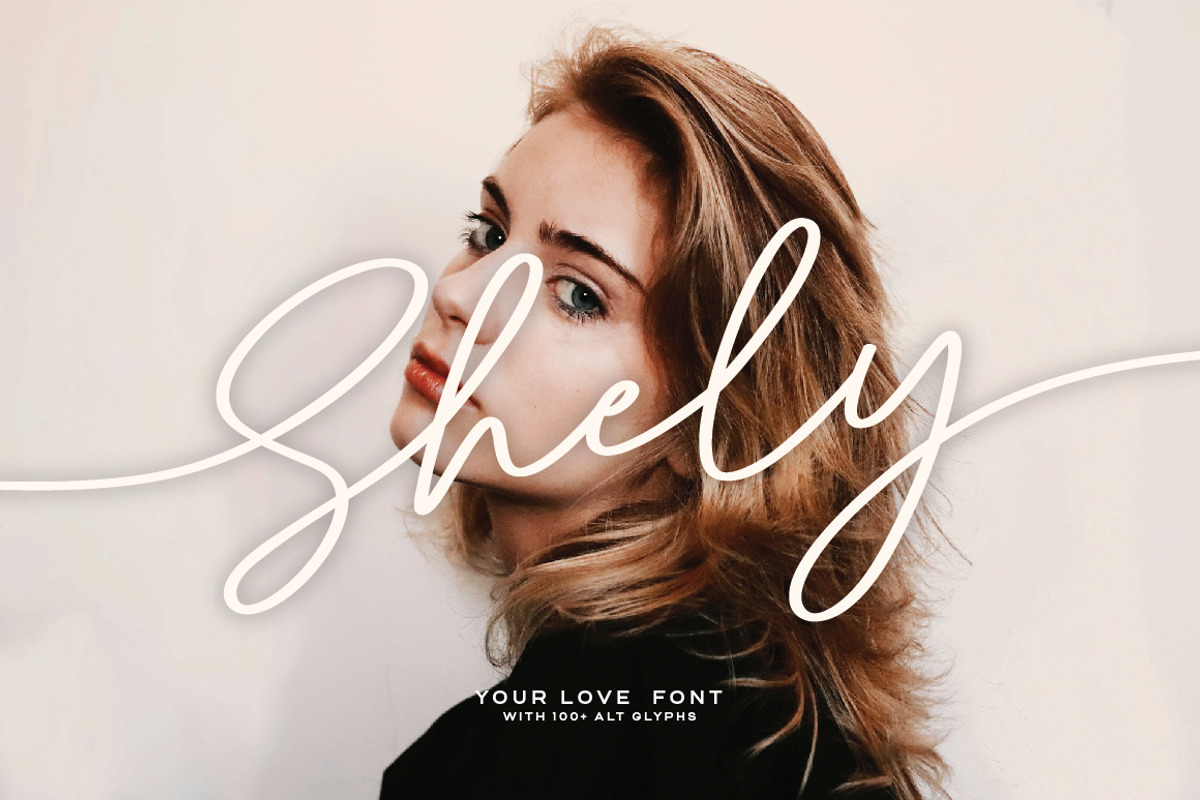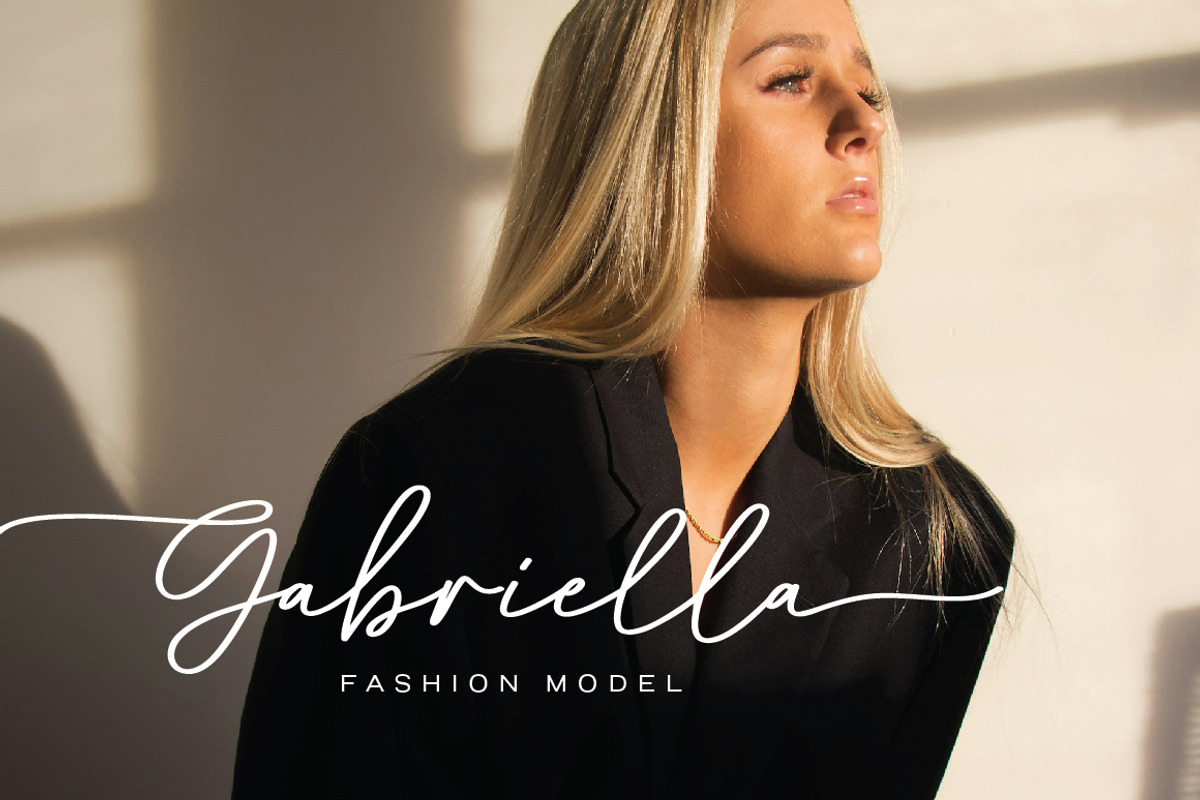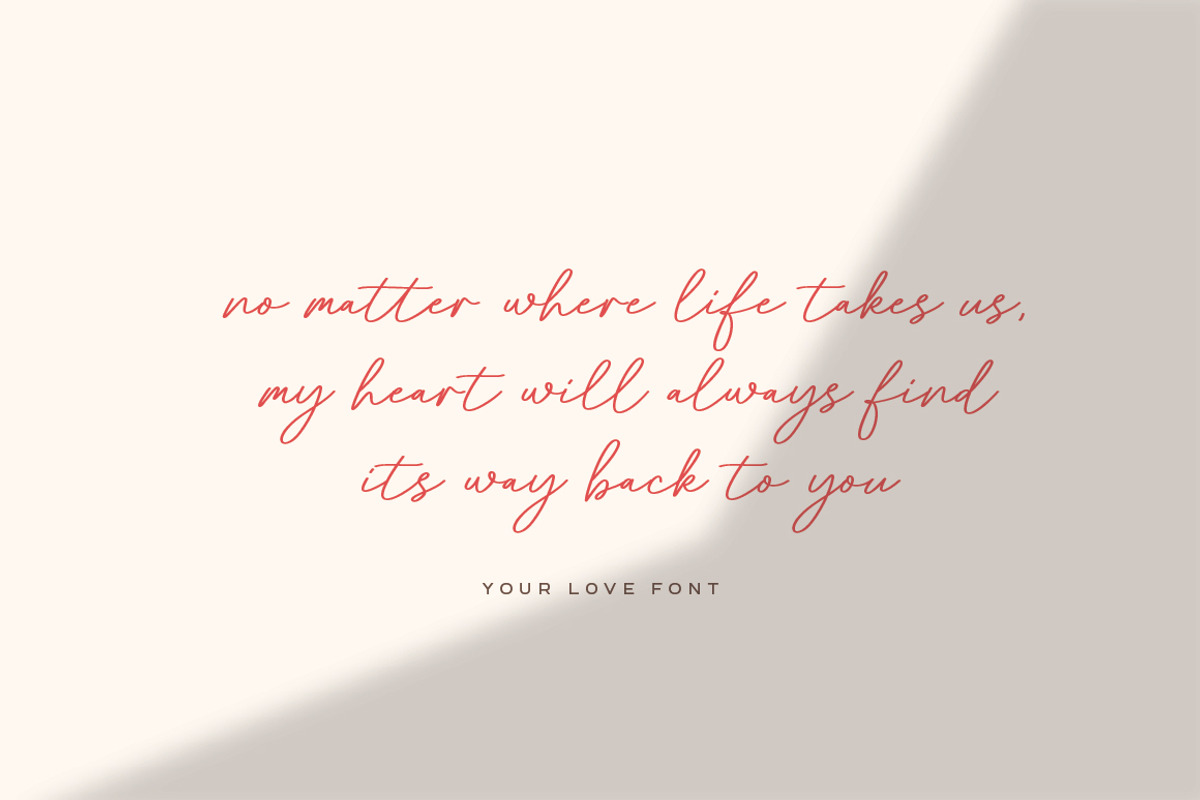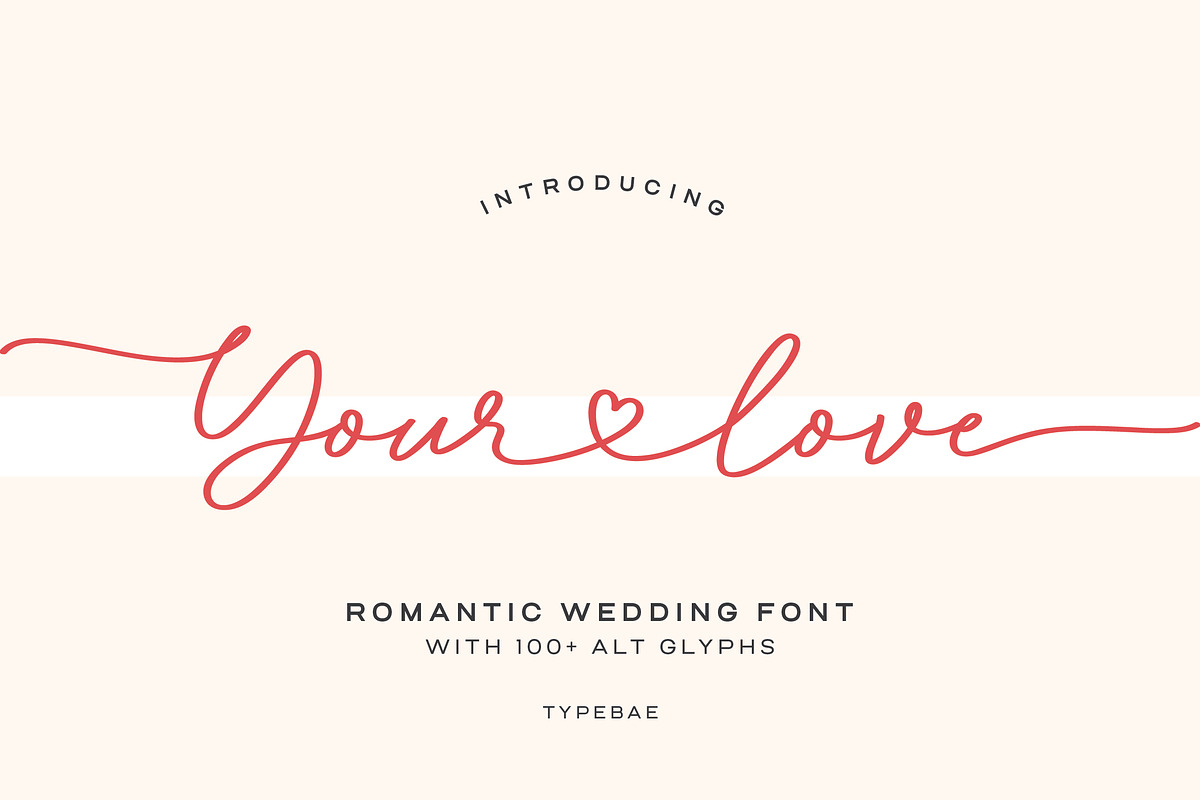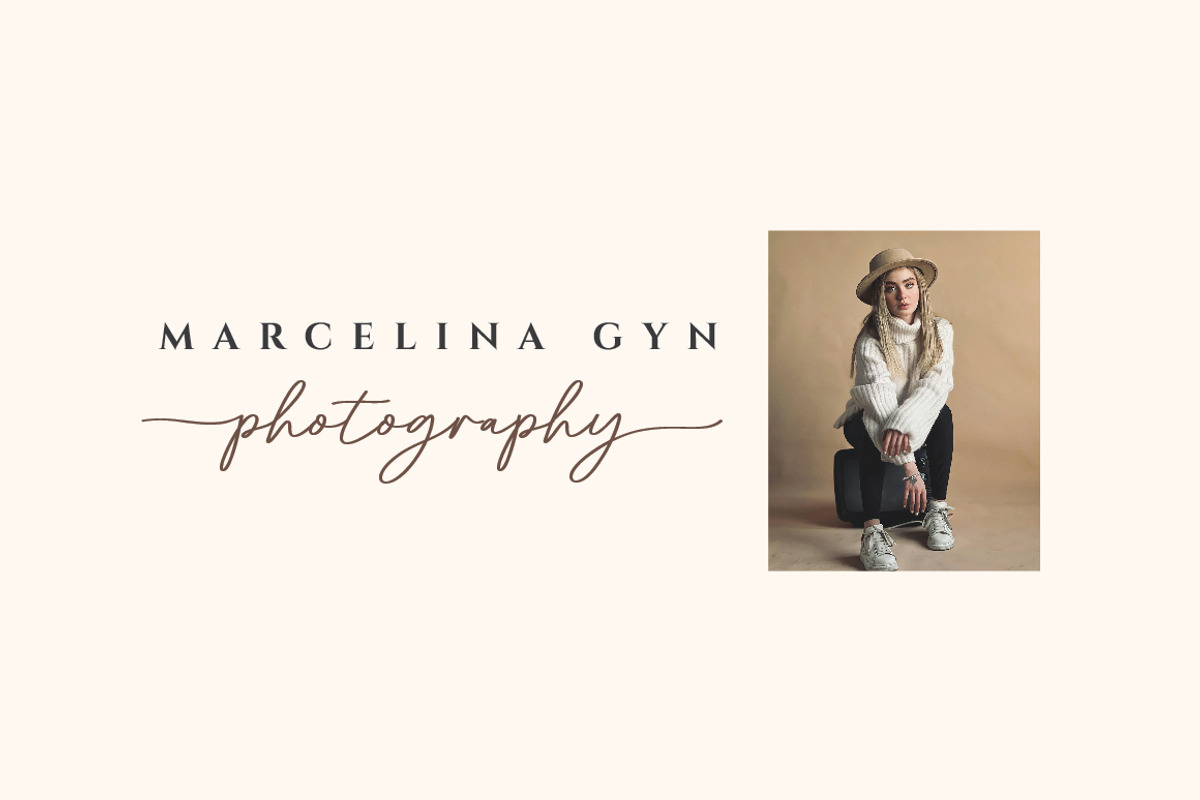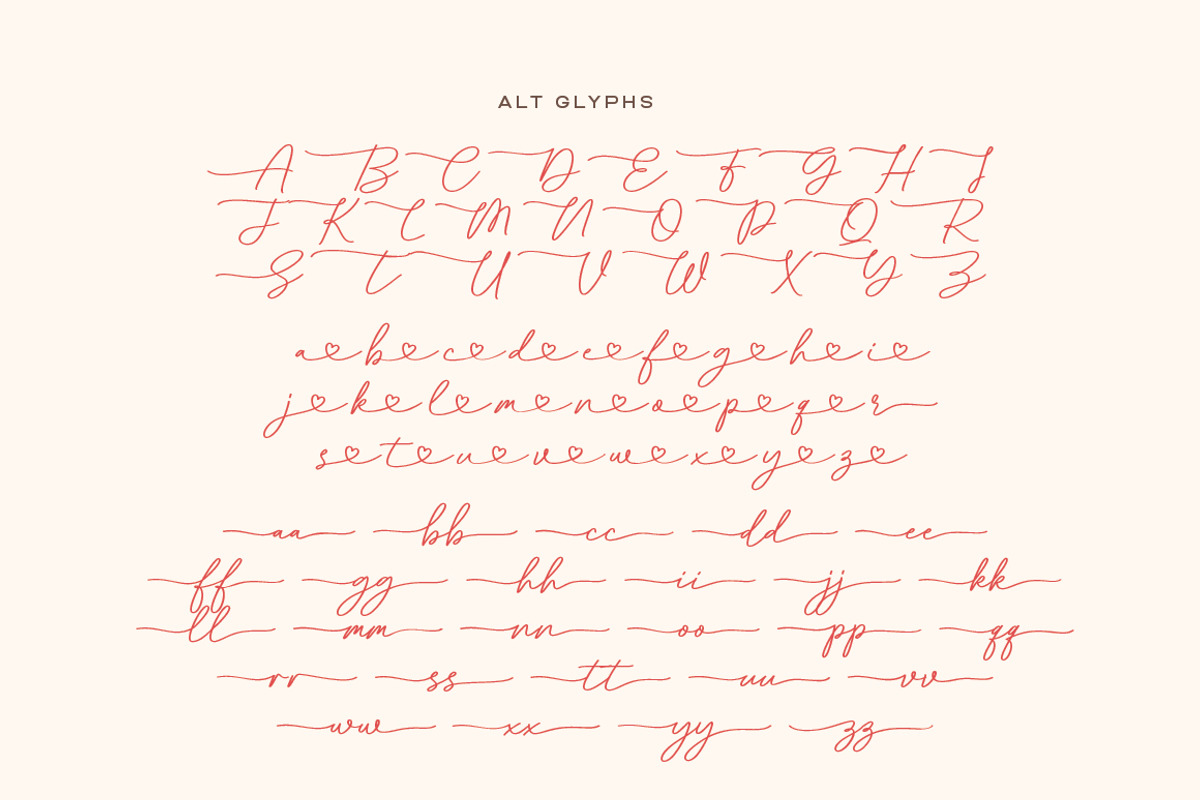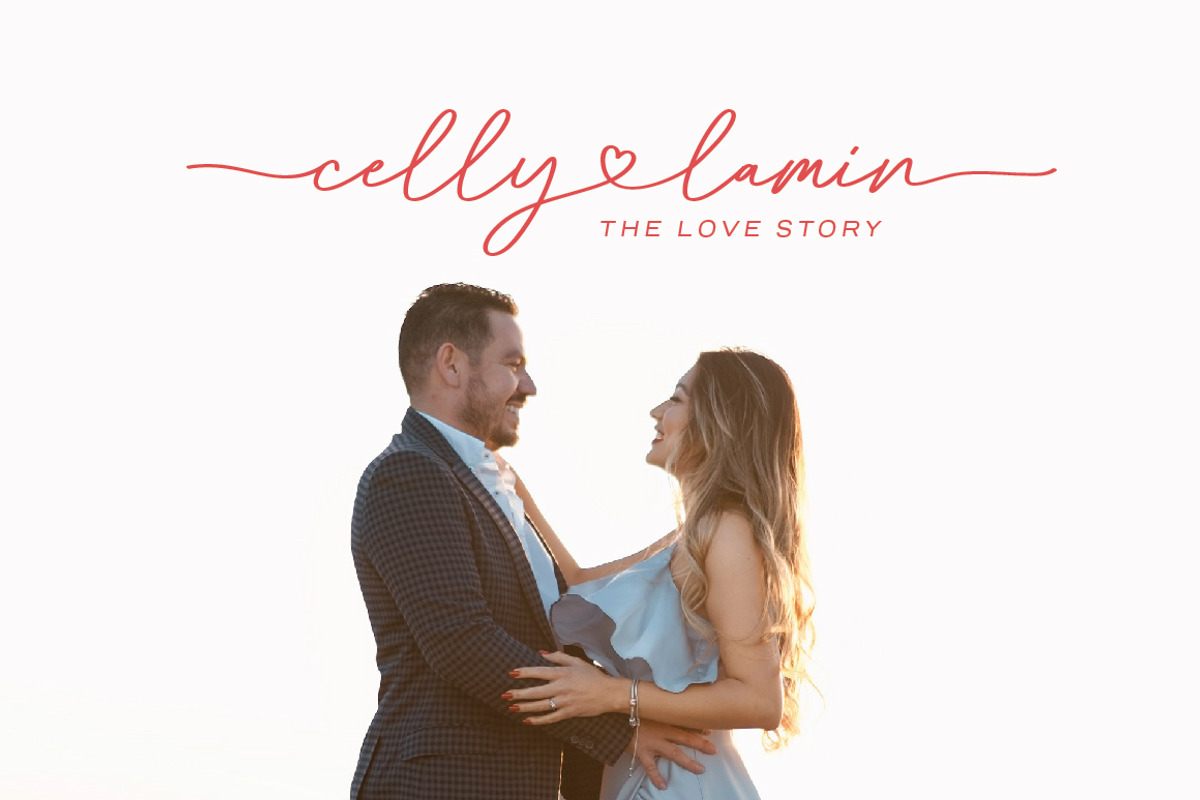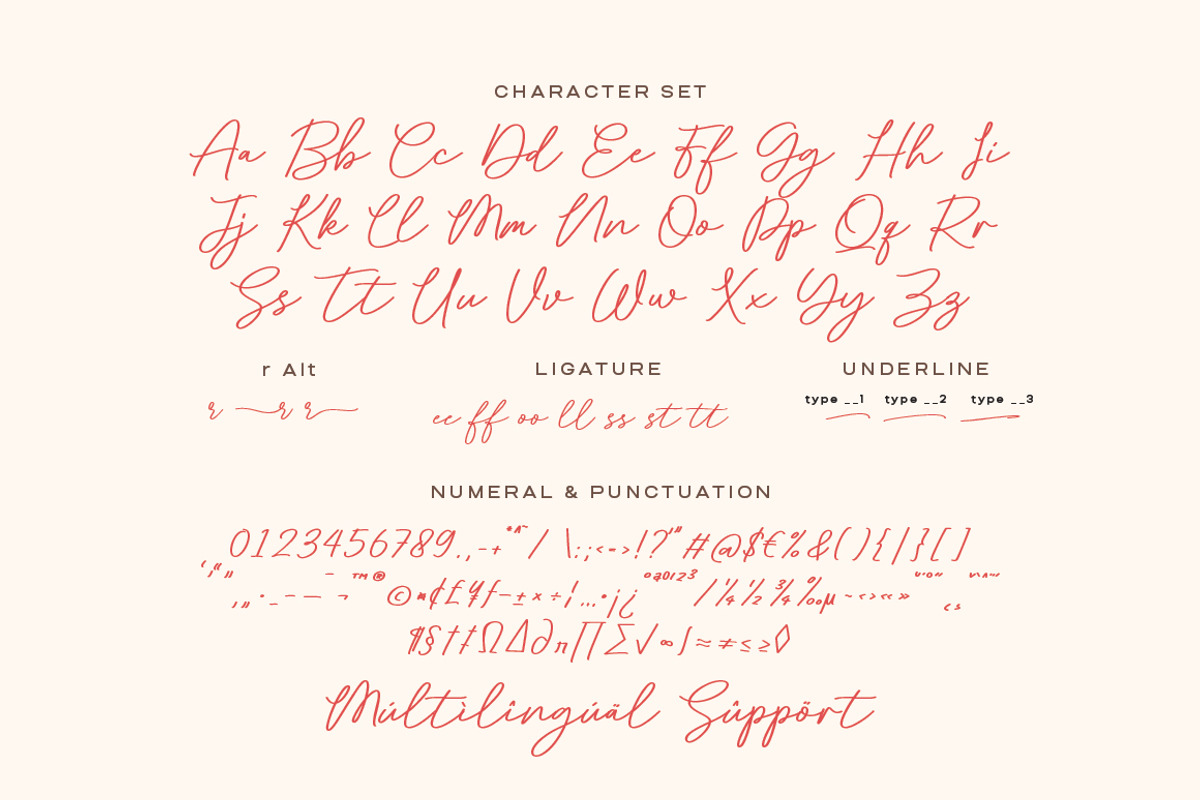
Your Love - Romantic Wedding Font
Your Love Font is a romantic handwritten script designed for weddings and love-themed projects. It features elegant swashes at the start and end of strokes, along with beautiful alternate characters that add charm and variety. Its most unique detail is the heart-shaped connecting swashes, giving every word a sweet and enchanting feel.
- Uppercase, Lowercase, Numeral & Punctuation
- Ligature, Multilingual and PUA encoded.